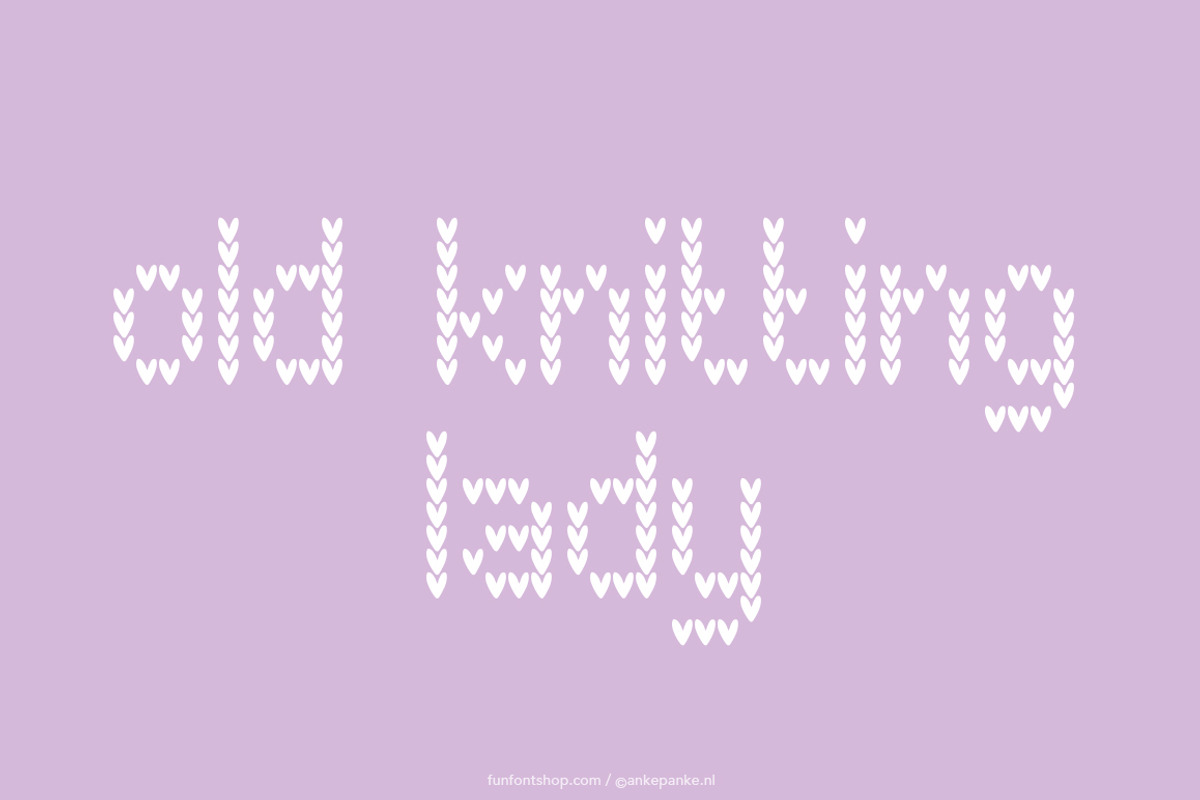
Old Knitting Lady font
Want to give your design a craft look? How about a font that looks like you're knitting? This font is created digitally, so big or small: it's always clean.
- Letters Lowercase and numbers
- Punctuation ?!+±=-_|/#,.:;'"&{[(@)]}
- Extra heart, star and diamond